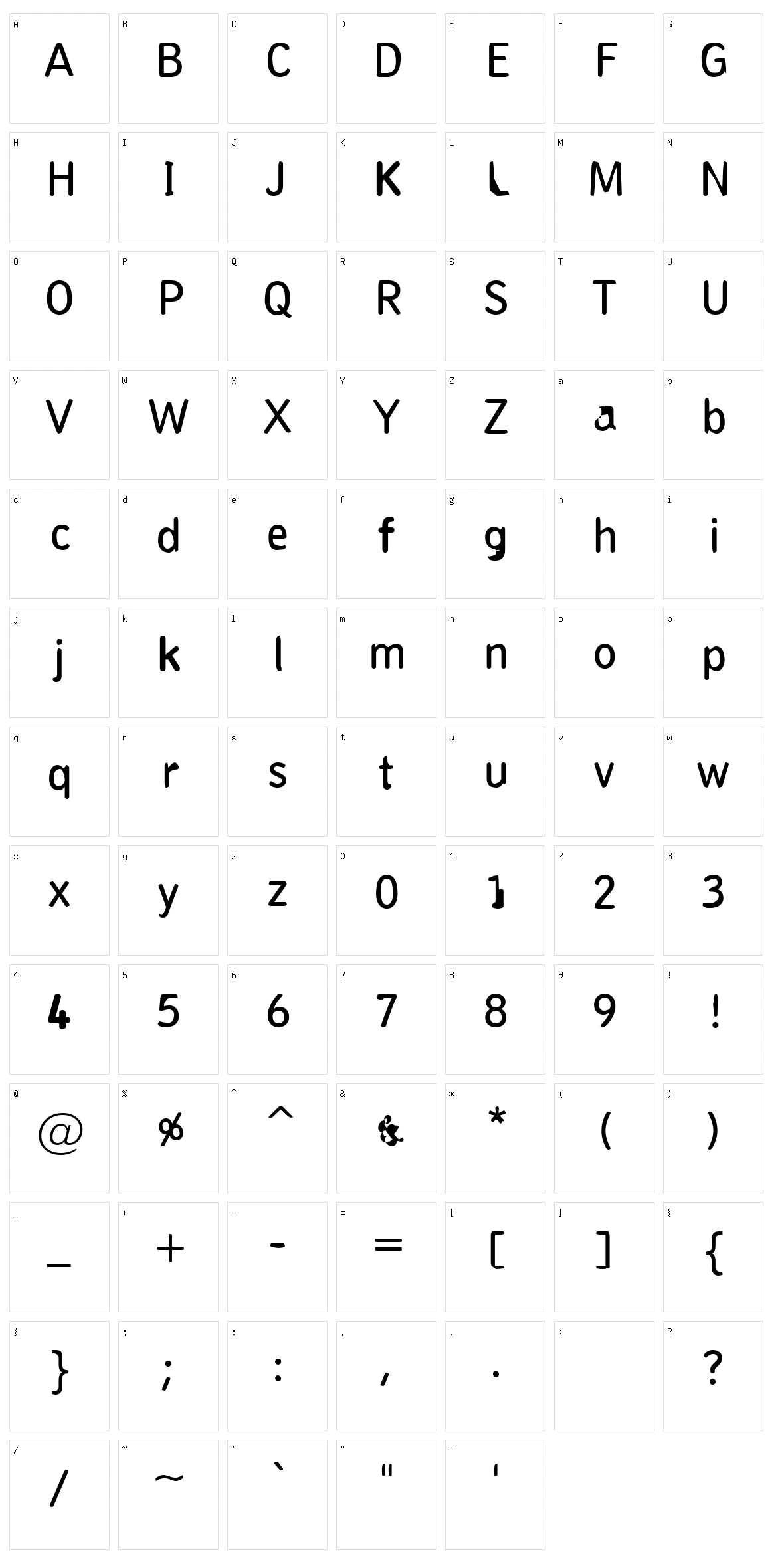
The free font Pungen is carefully designed by TarmSaft Font Factory, showcasing a thoughtful balance of creativity and usability and falls under the Eroded font style. When you download the ZIP file, it contains only 20.45 KB of font files, making it lightweight and quick to download. Please review the license details below to understand permitted usage and distribution rights. If license information is not available, we recommend using this font for personal projects only or contacting the author directly for commercial usage permissions.